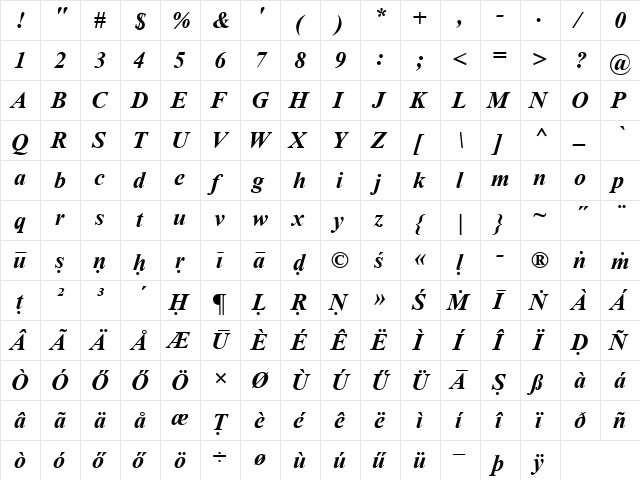
Times New Sanskrit Bold Italic
Design Context for Times New Sanskrit Typeface
Times New Sanskrit takes a measured approach to typography — its balanced proportions and neutral character make it a reliable workhorse for both digital and print work. The slanted form adds forward momentum and visual energy. The heavy weight commands attention and anchors typographic hierarchies.
Pro Tip: Use Times New Sanskrit for emphasis, pull quotes, and subheadings where its slanted energy can add rhythm to the layout.